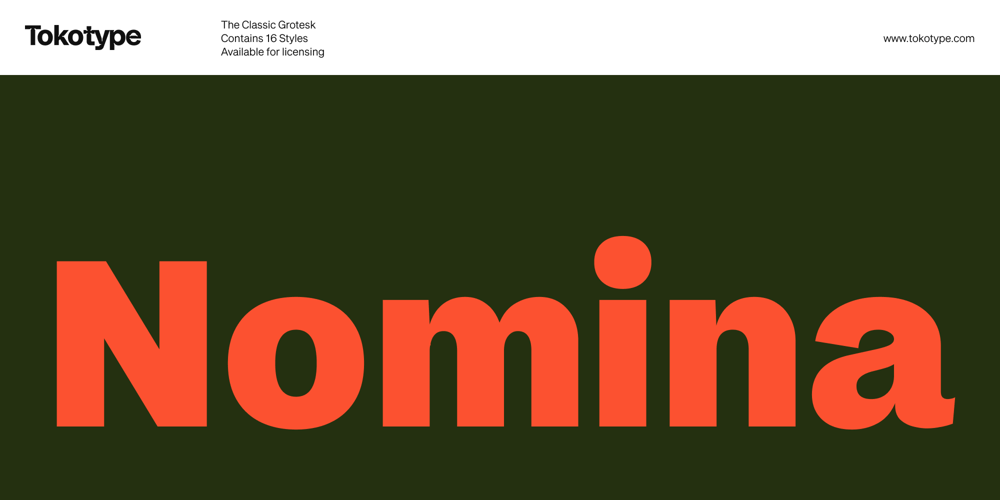
Nomina
Nomina font
Nomina Font Family was designed by Gumpita Rahayu and published by Tokotype. Nomina contains 17 styles and family package options. Nomina is a family of sans serif fonts for use from large to small sizes. The weights of the family itself contain 16 styles plus italic, ranging from ExtraLight to Black. The font family takes was inspired by classic Grotesk typefaces such as Venus and Akziden Grotesk. Unlike any other modern Grotesk typefaces, the details of the contrast in this font family are quite subtle and yet still harmonize while standing in between another character, the open apertures help them to increase the quirkiness accompanied by the sharp terminals on each rounded glyphs. The Nomina family is well equipped with lots of selective alternates and OpenType features, and the main usage of this font is universal, this means this can use it any design style as long as the look and feel keep match with its characteristics.